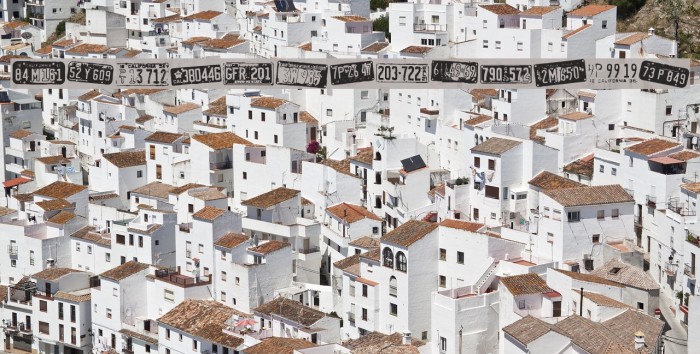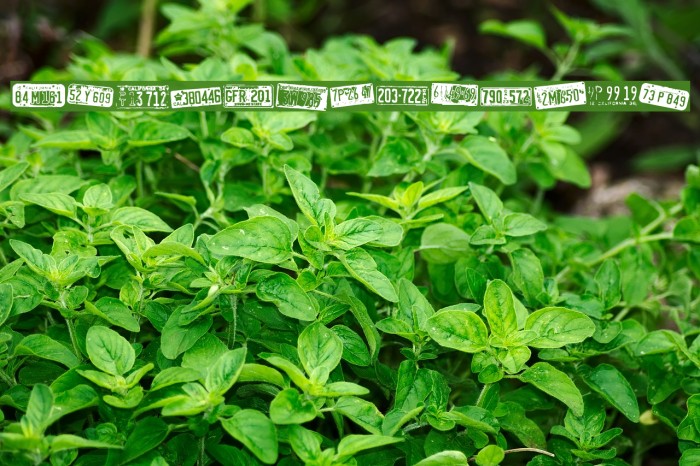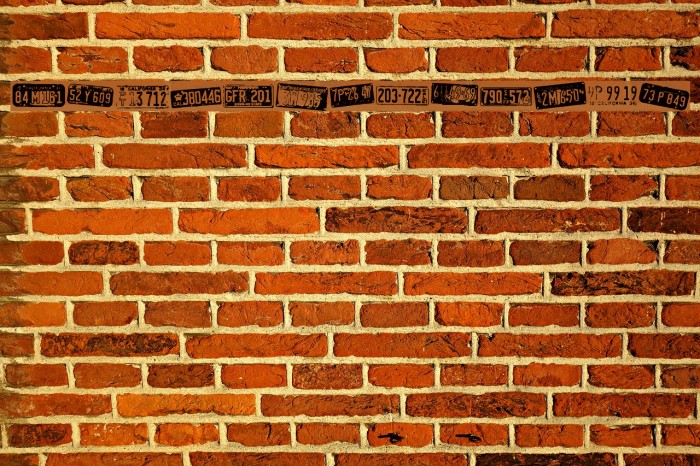
Californian cars Font
This image does not contain a valid font. It appears to display a series of vehicle license plates with various alphanumeric combinations. The plates are arranged in a grid-like pattern, each with a distinct combination of letters and numbers. The characters are bold and capitalized, typical of license plate designs, ensuring high visibility and legibility. The background of each plate is dark, with white characters that stand out prominently. This design is functional, focusing on clarity and readability rather than aesthetic variety.
The image shows license plates with bold, capitalized alphanumeric characters.
- Font: Californian cars
- Proposed Projects: Not applicable as this is not a font.
- Overall Style: Functional
- Use Case: Not applicable